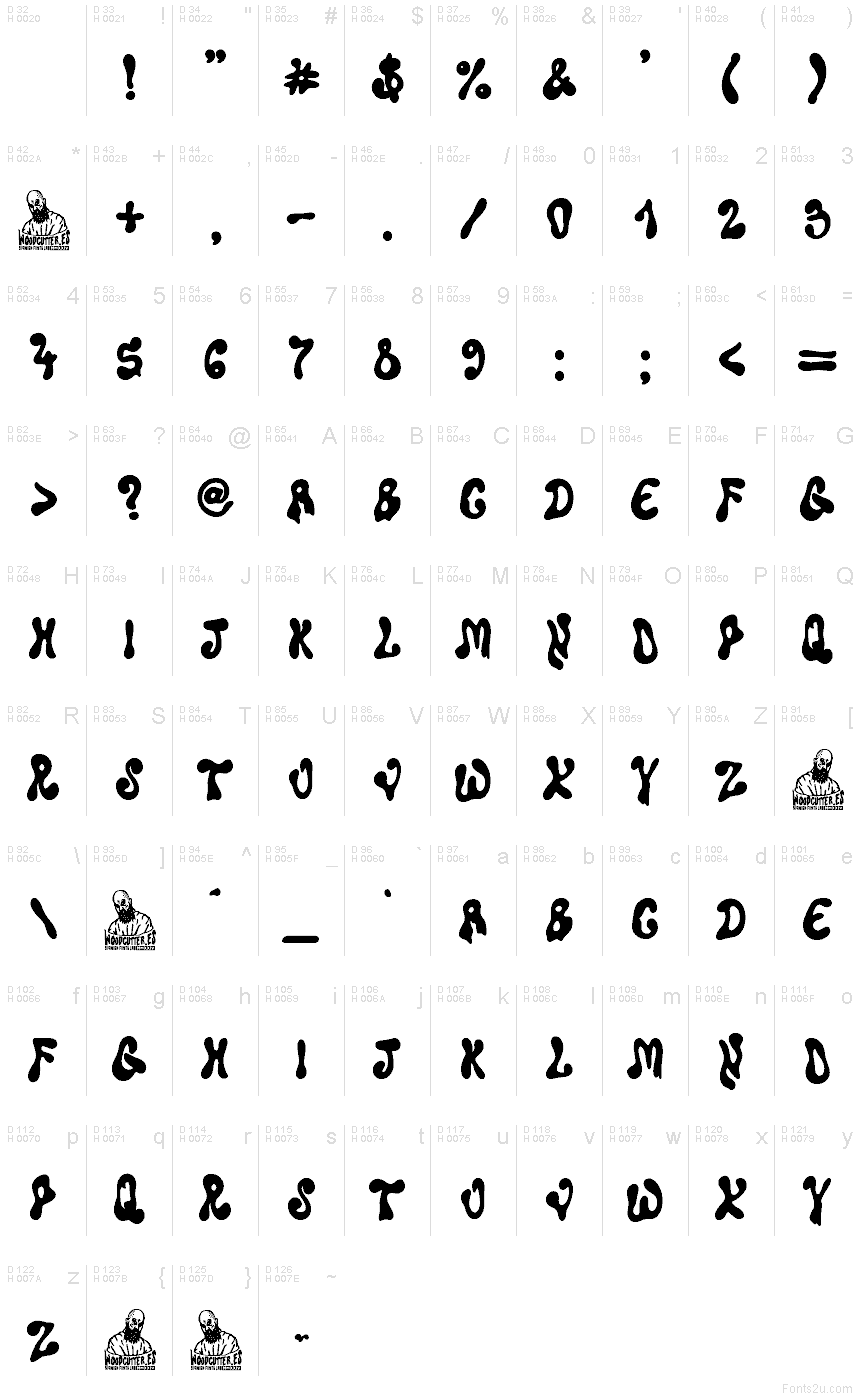
Super Liquida
Super Liquida font by Woodcutter is a unique display typeface designed with an artistic and imaginative style. Featuring a bold weight, the groovy display font is fluid, organic, whimsical, and flowing. It’s a font worth experimenting with especially since you can download it for free in its TTF format.
Use Super Liquida on packaging designs, product label designs, magazines covers and typographic projects as well. Other applications include greeting cards printing, logos & branding designs, books & comics covers as well as stationery items like business cards.
Super Liquida